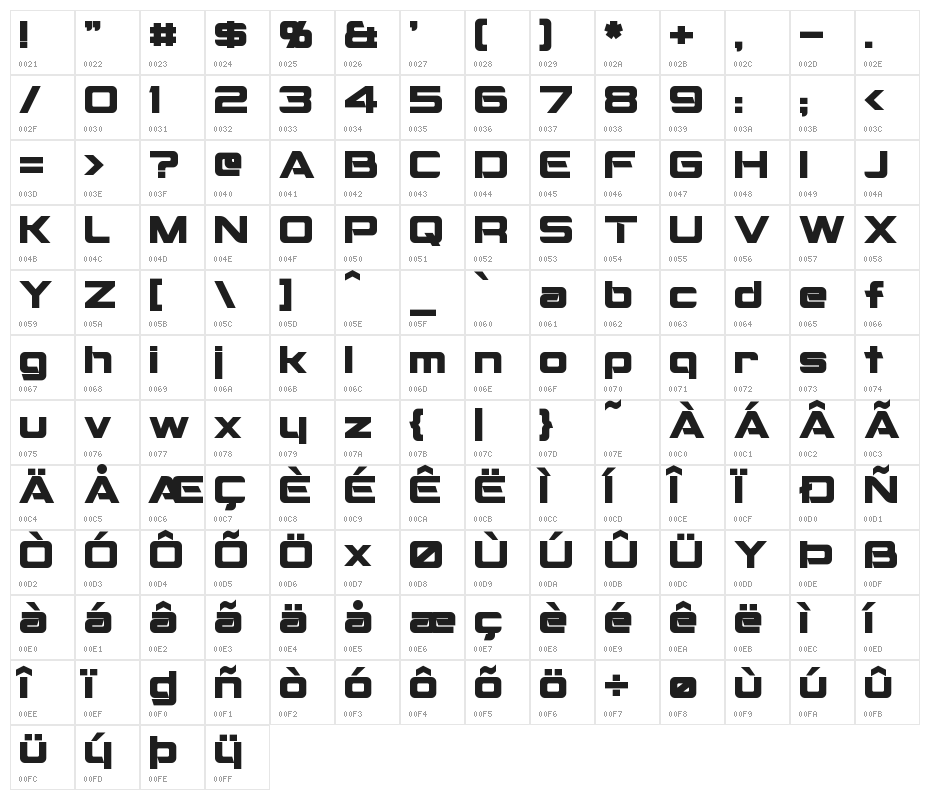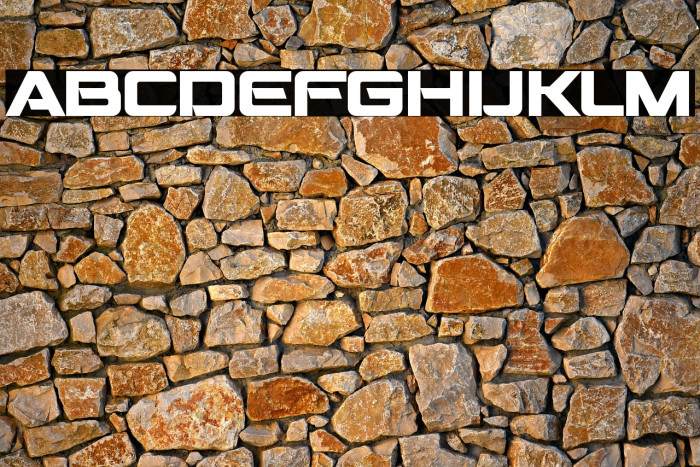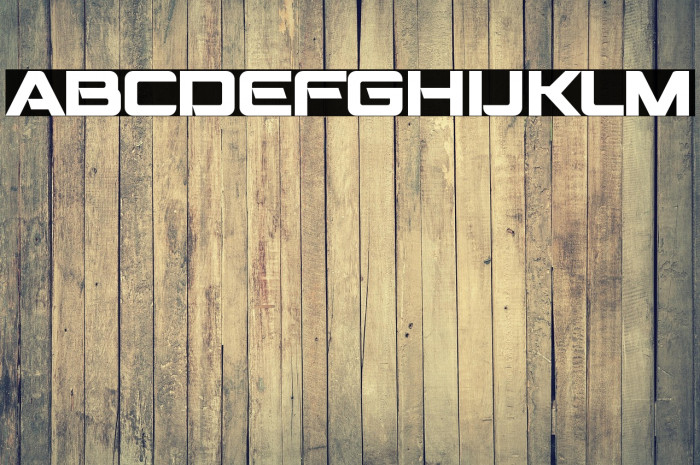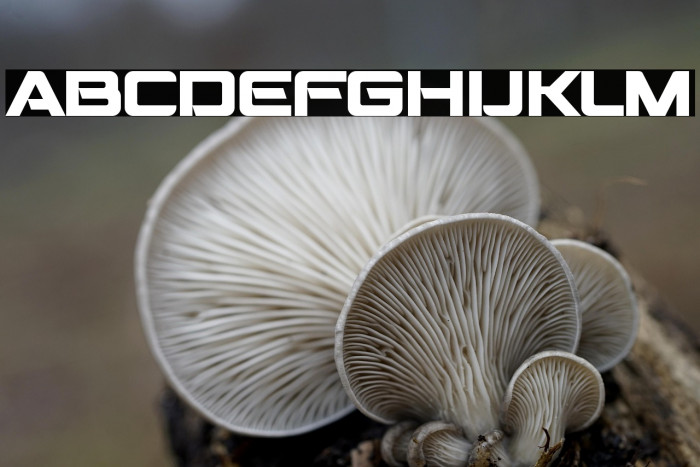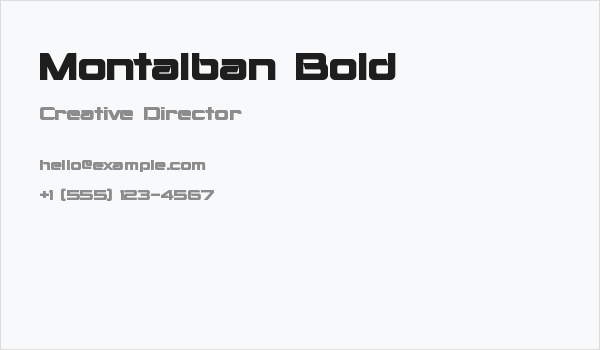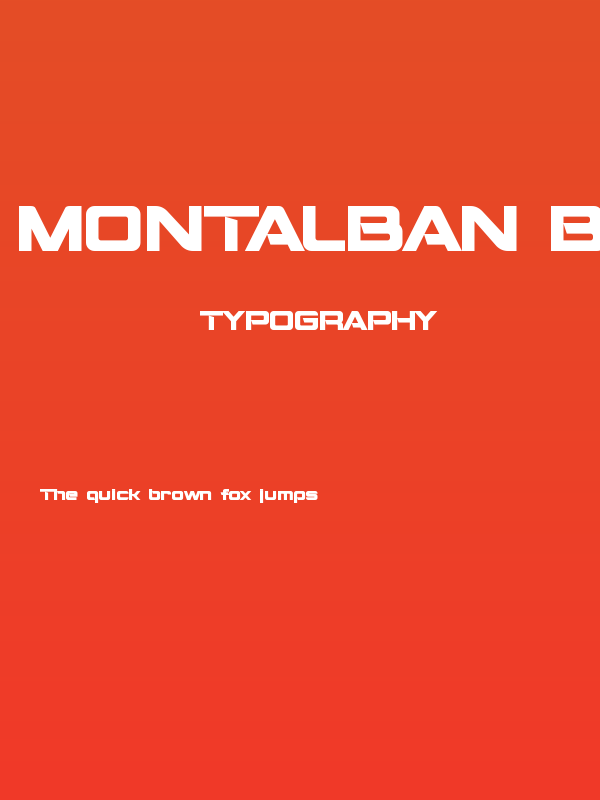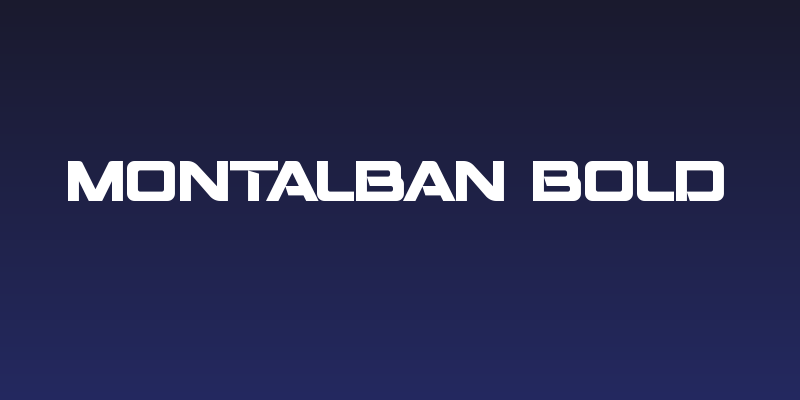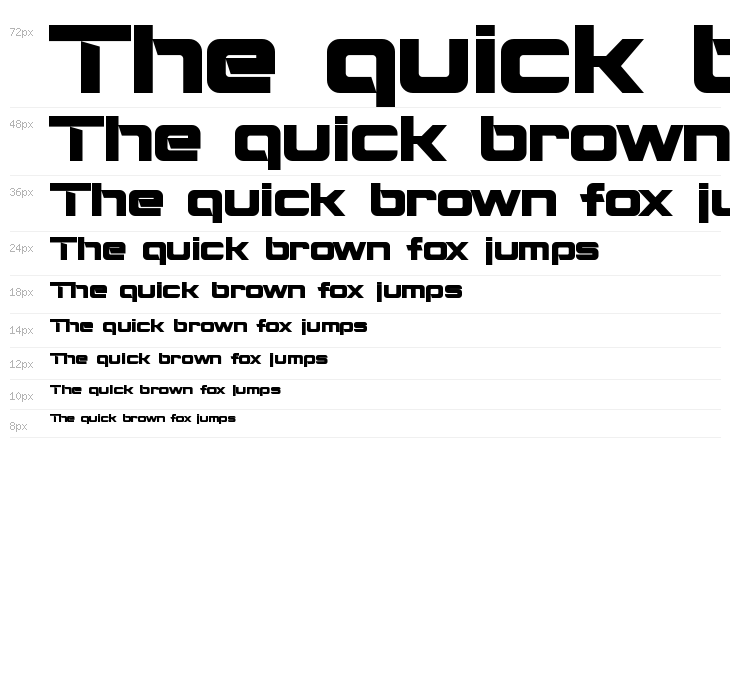
Montalban Bold Font
Montalban Bold Description
This font features a bold and modern design with a strong geometric structure. The characters are wide and have a consistent stroke thickness, giving them a robust and impactful appearance. The uppercase letters are particularly striking, with sharp angles and clean lines that convey a sense of strength and stability. The lowercase letters maintain the same boldness, ensuring readability while adding a touch of uniqueness with their slightly rounded edges. The numerals and special characters are designed to match the overall bold aesthetic, making them suitable for various applications. The font's style is ideal for projects that require a contemporary and assertive look.